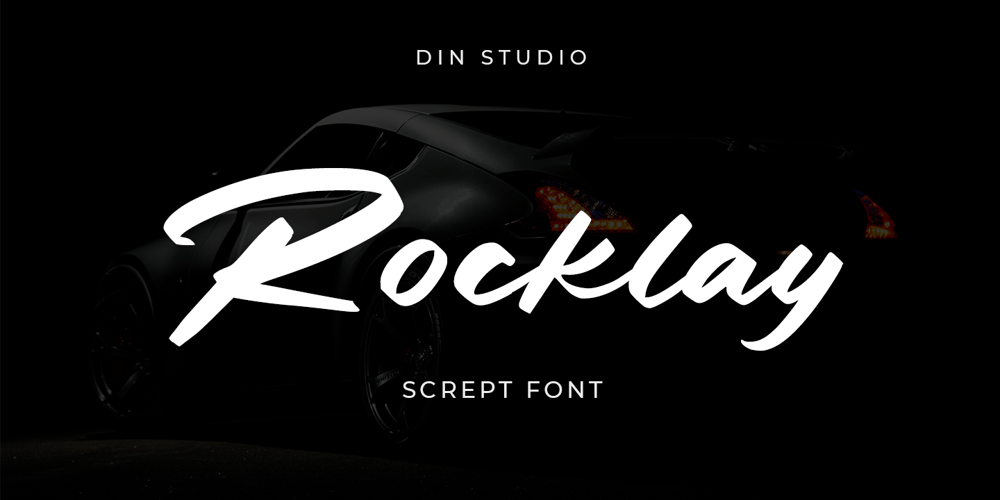
Rocklay Font Family was designed by Donis Miftahudin and published by Din Studio. Rocklay contains 1 styles and family package options. Rocklay is a bold script font. With a classy and natural style, it brings beautiful typeface. Rocklay is best used for branding, logotype, and quotes.Features: – Multilingual Support – PUA Encoded – Numerals and Punctuation